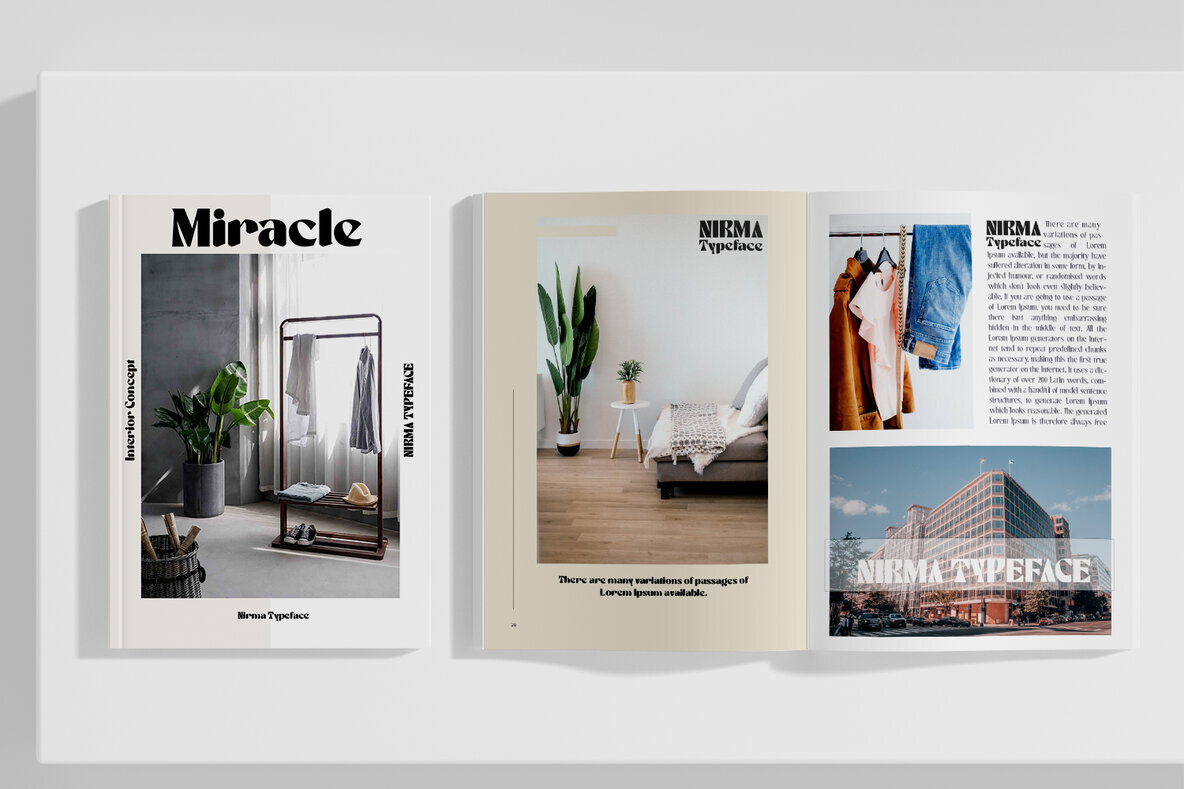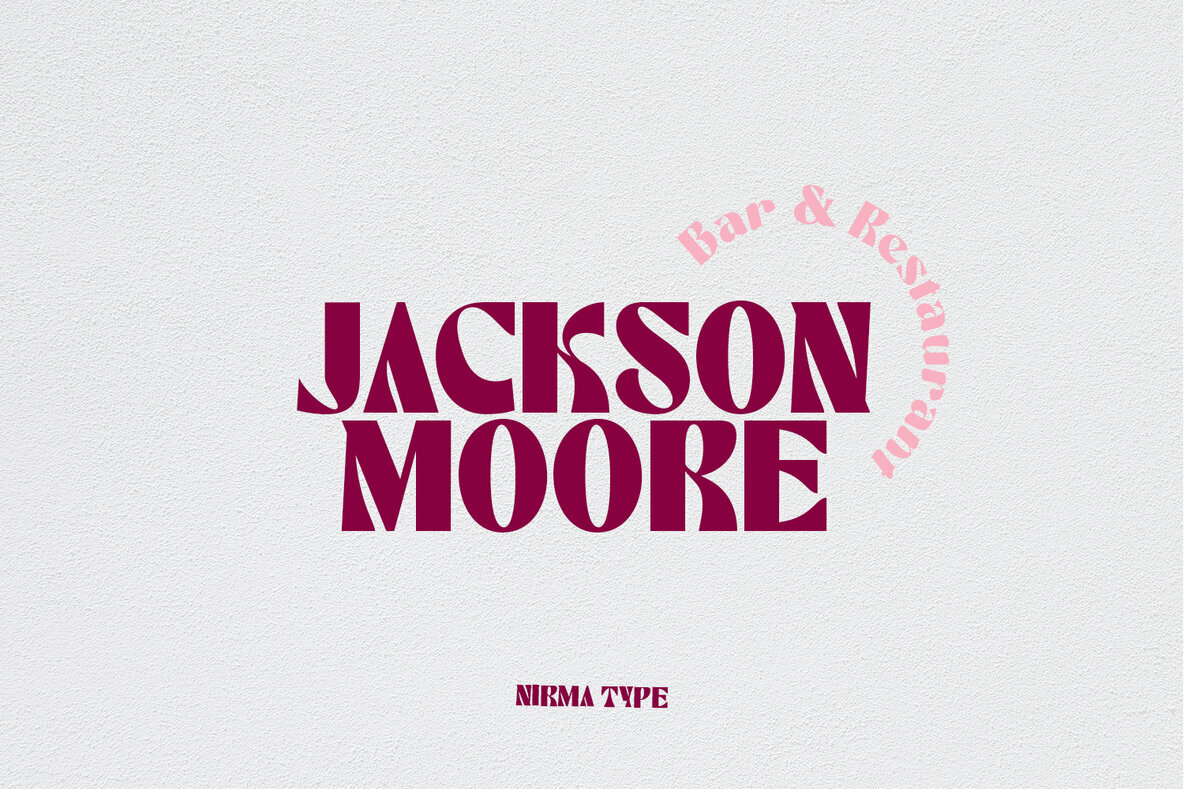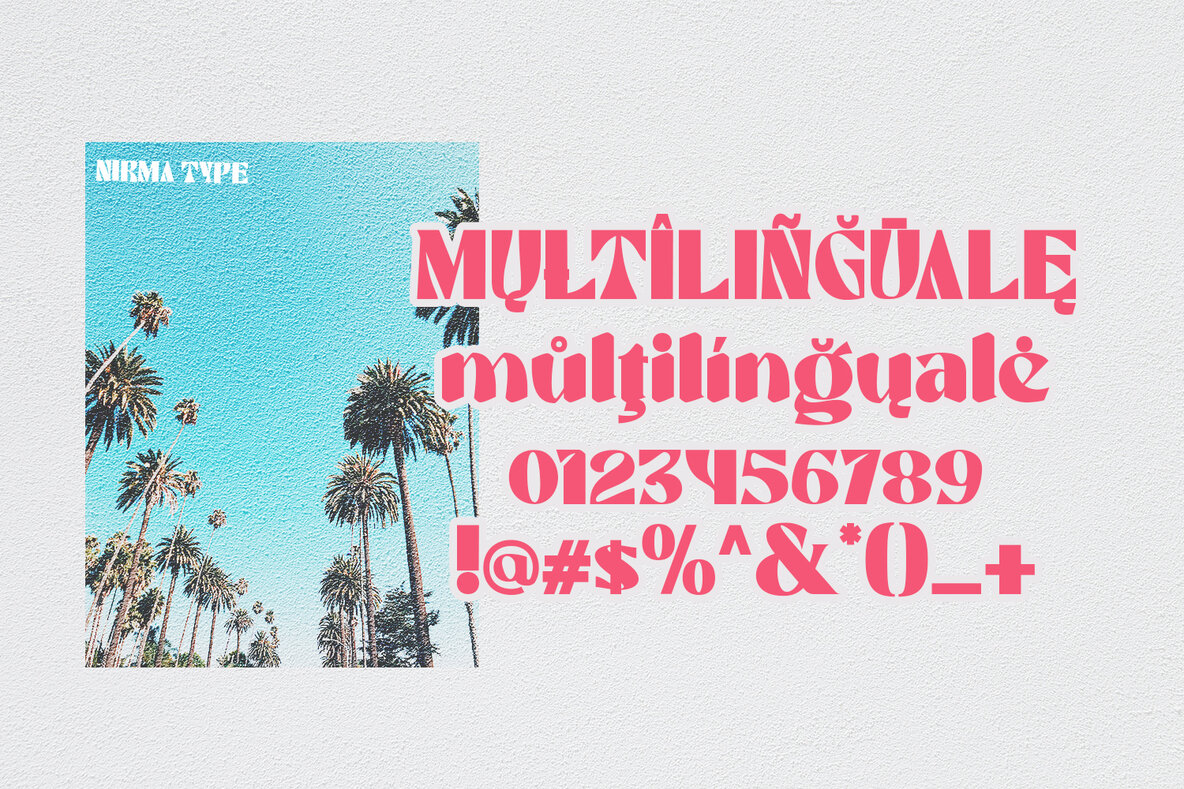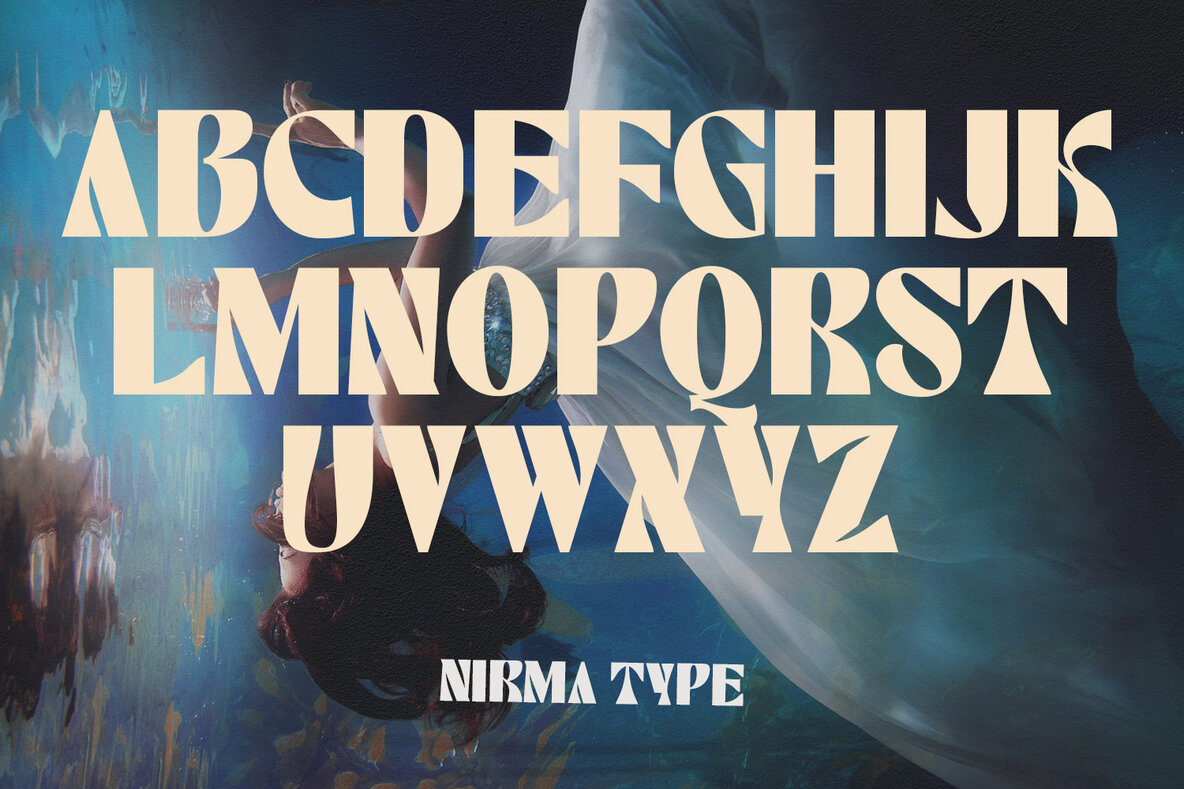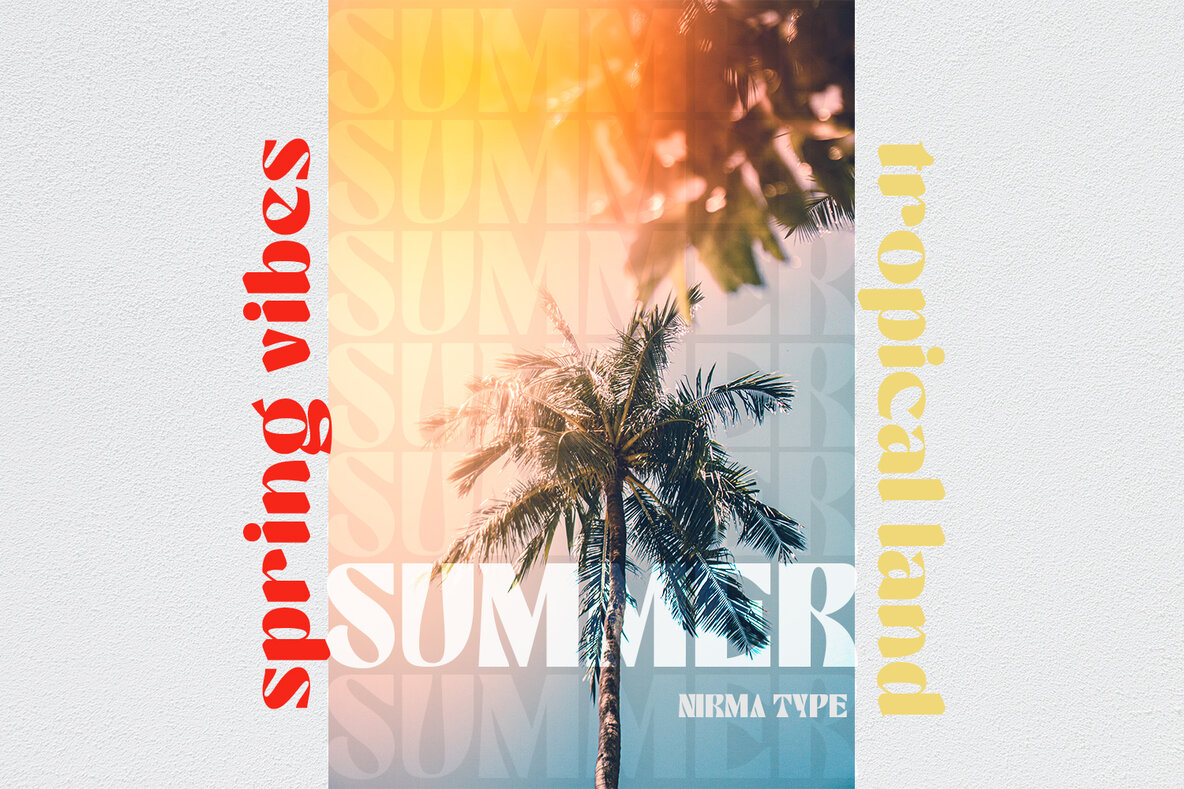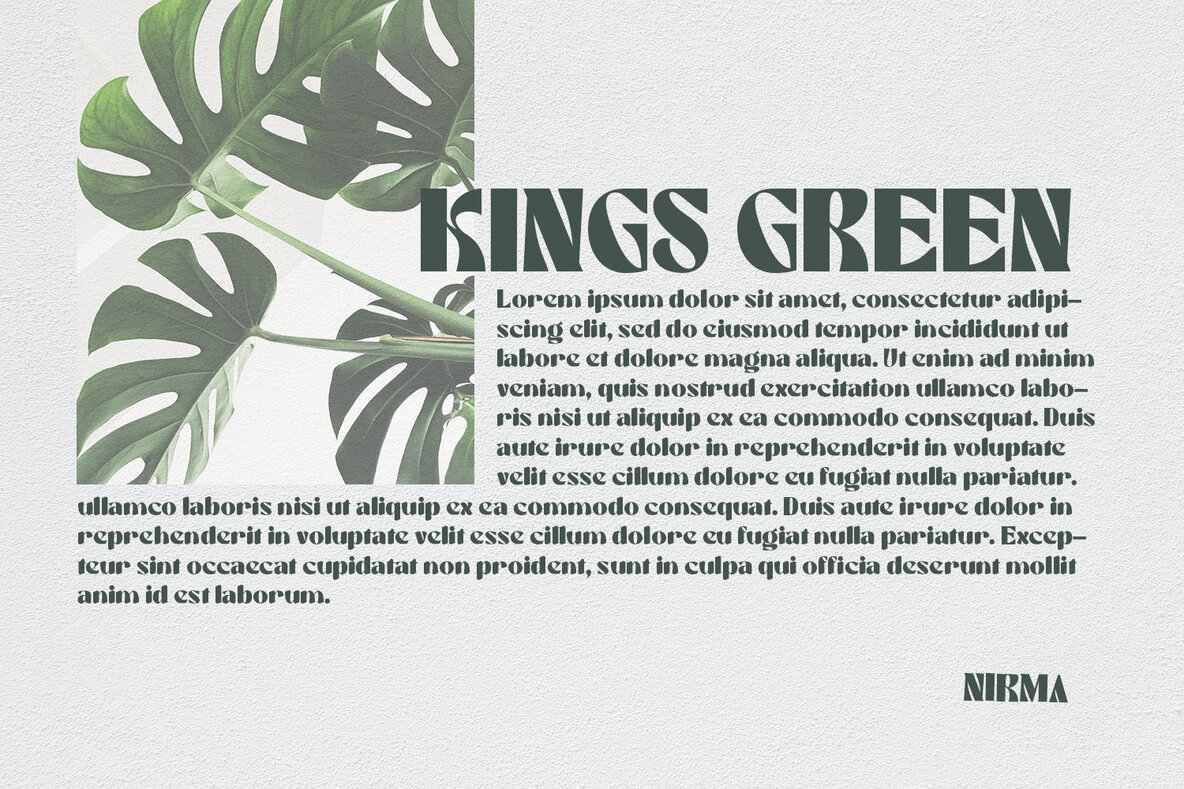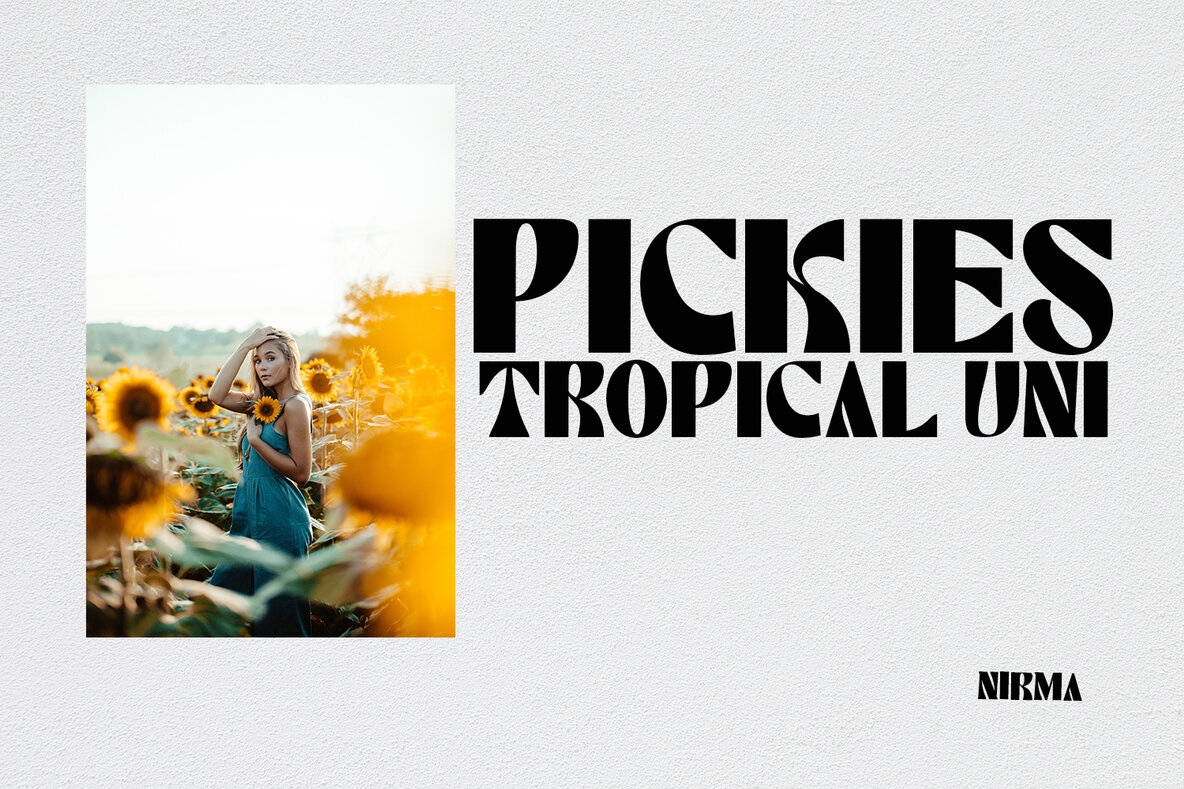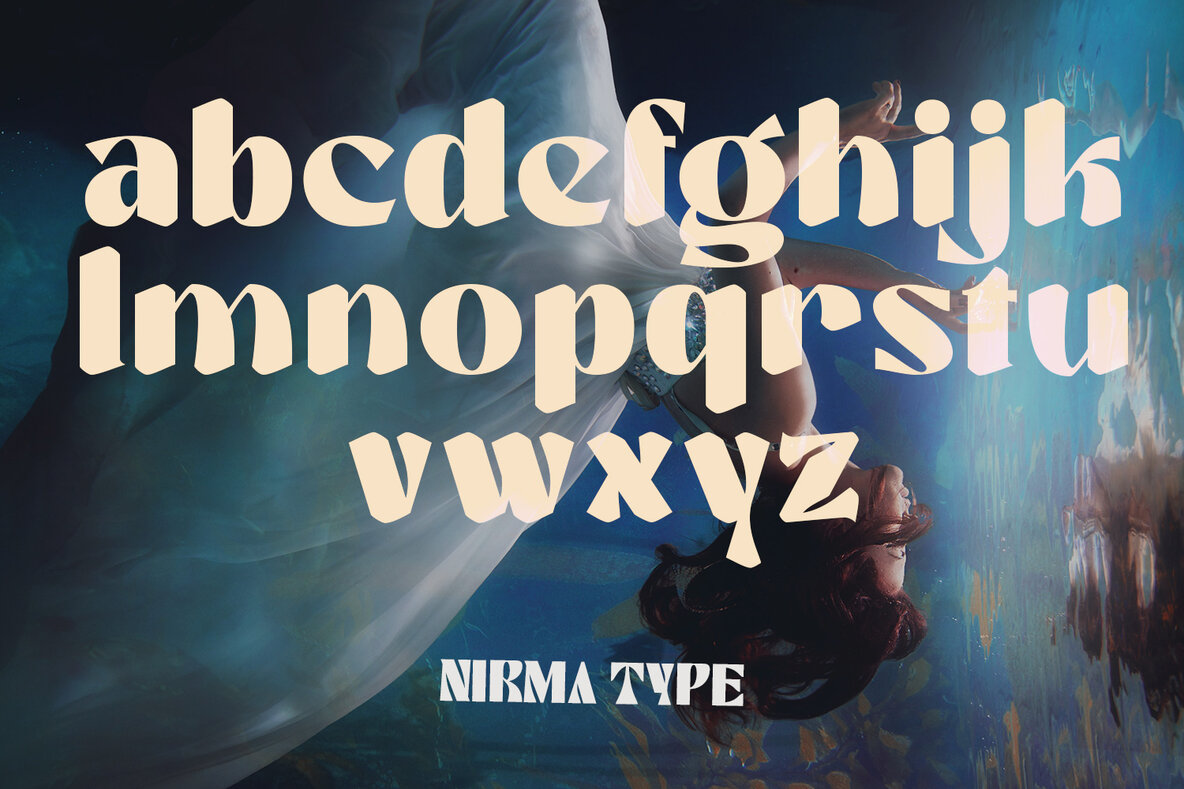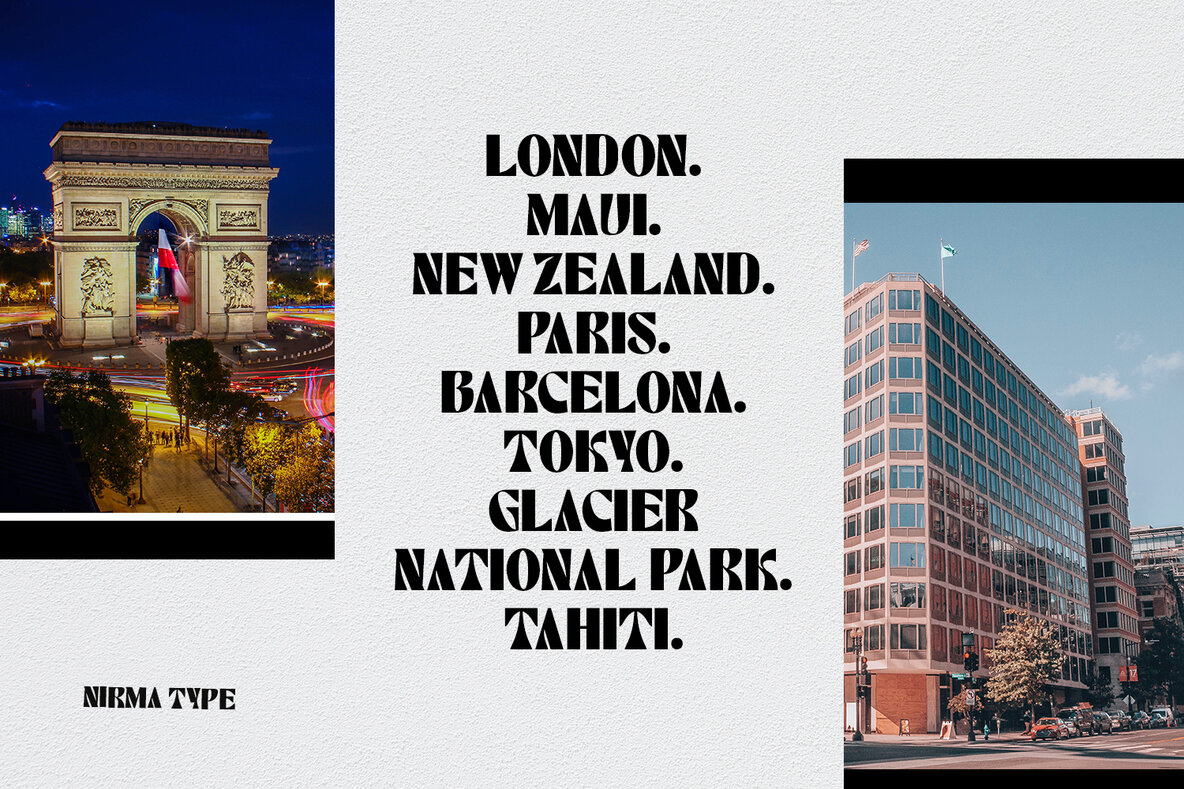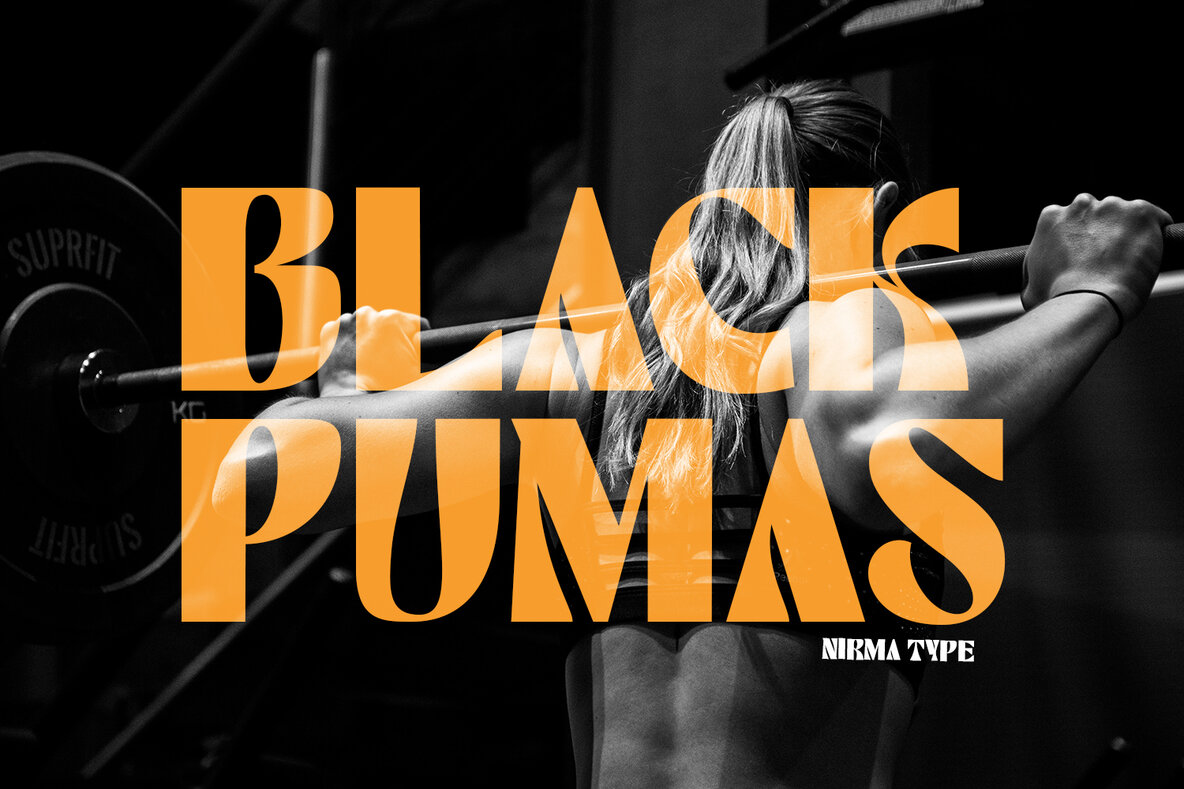
Nirma Font
Nirma offers a versatile and striking typeface ideal for a broad spectrum of design projects. This display font serves not just for conventional branding elements but also enriches product packaging, invitations, quotes, t-shirts, labels, posters, and logos with its unique style.Nirma Display Typeface: For Dynamic Branding